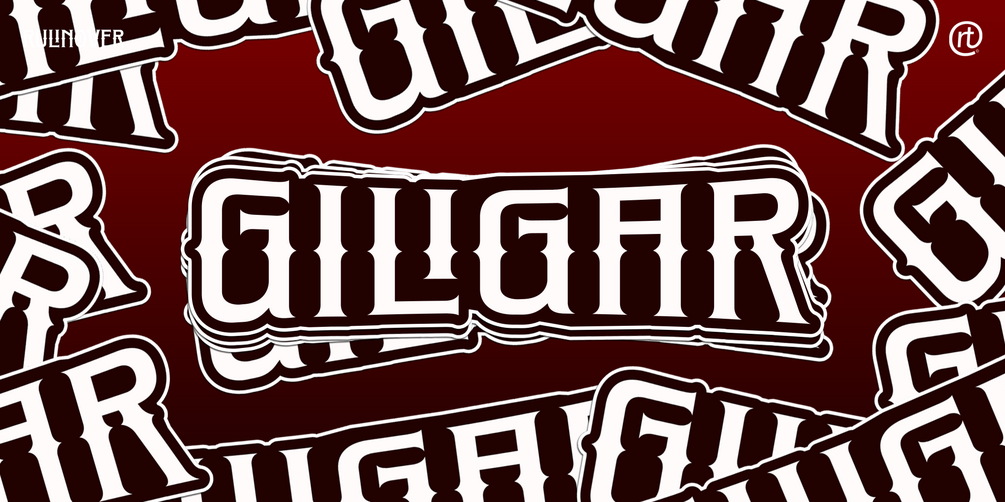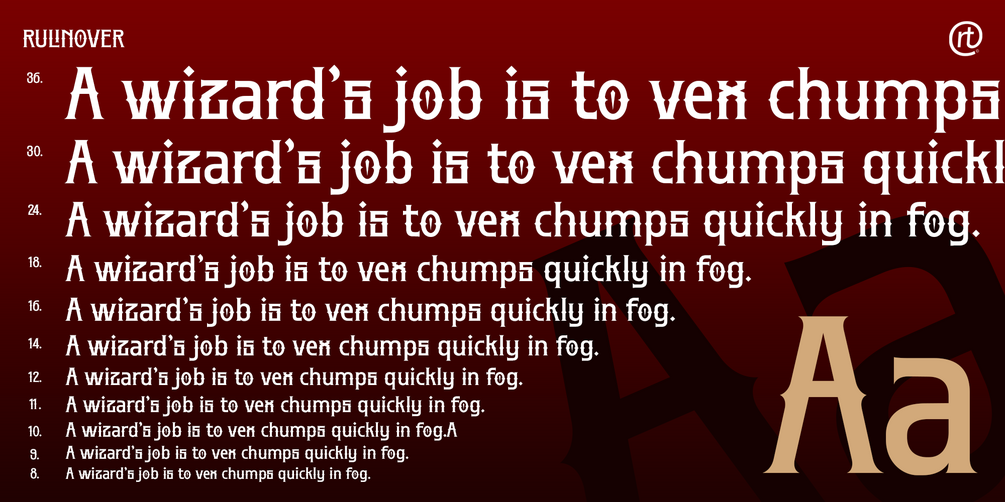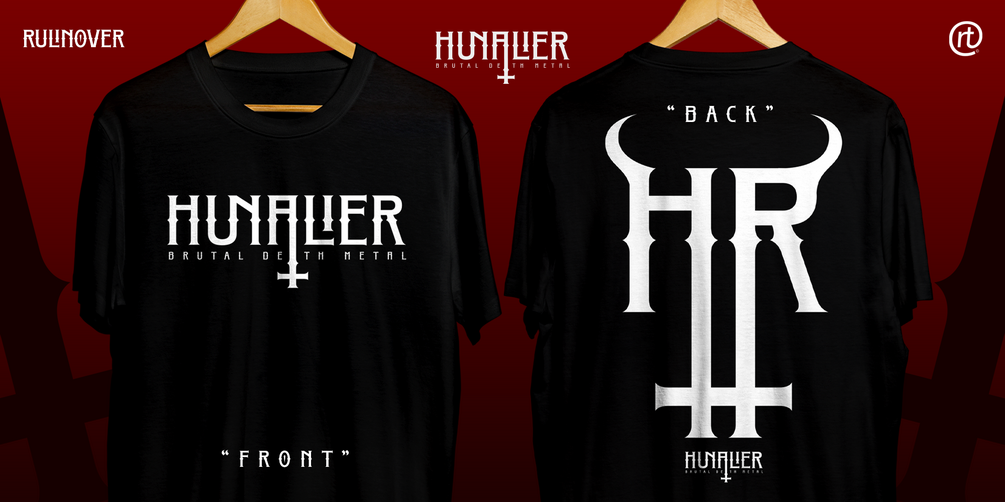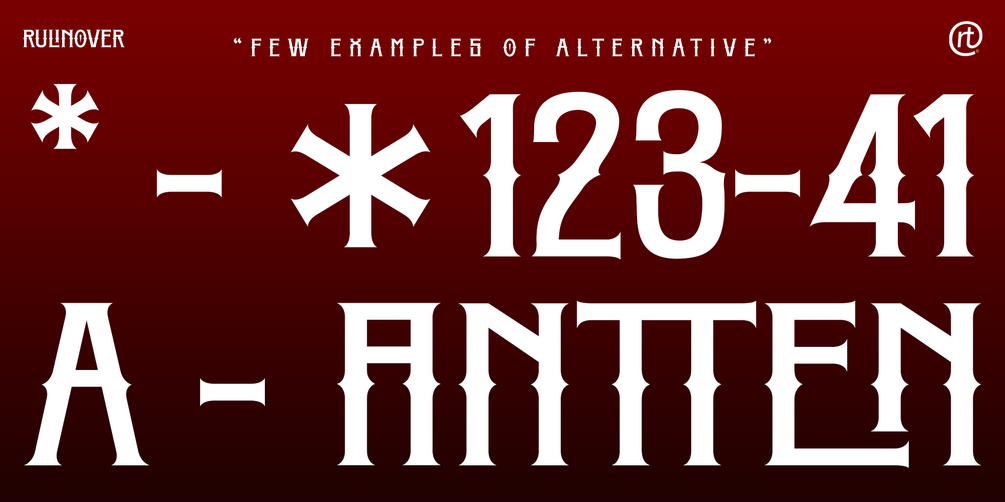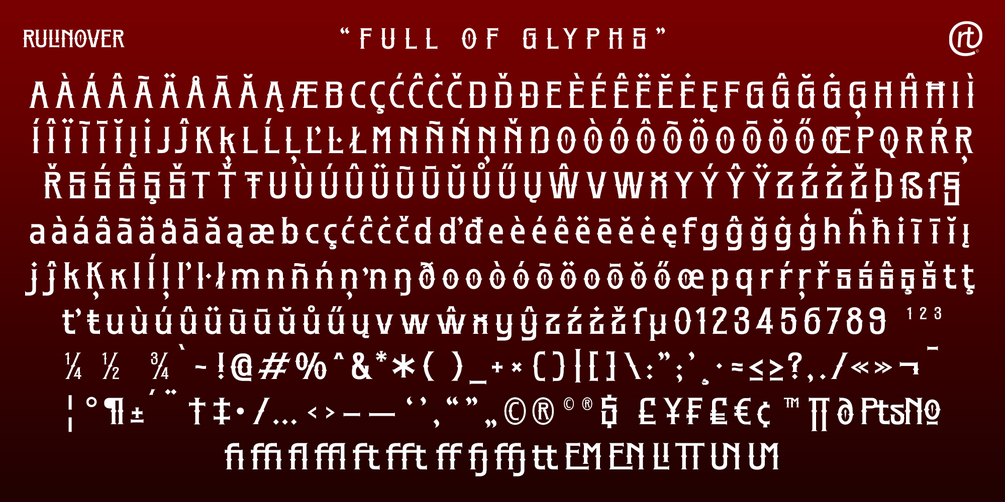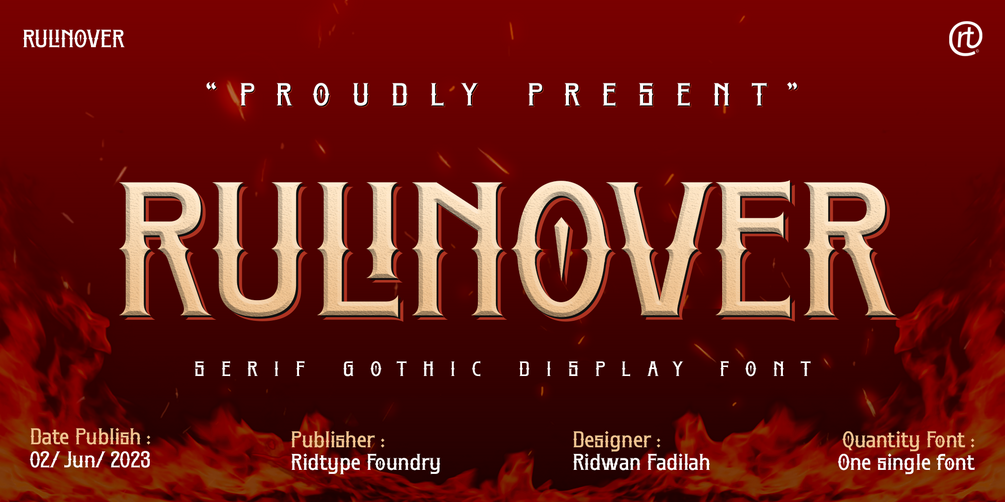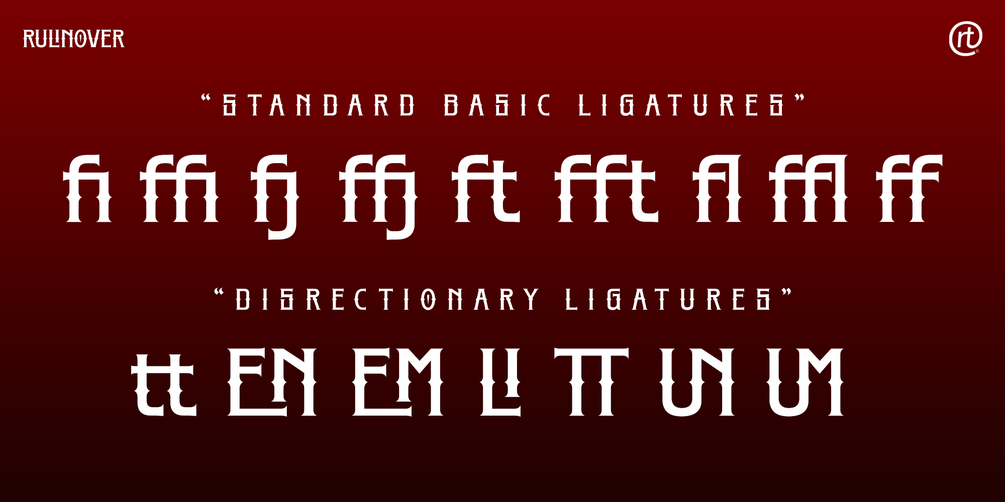
Rulinover - Serif Gothic Display
Rulinover is a serif font inspired by adrenaline-pumping gothic horror movies and games.
With that comes Rulinover as a supporting tool to support typography based on genres of horror adventure, challenge and dare in a particular game or film.
And also supported by many alternative ligature and letter concepts that are useful in making logotypes or monogram styles. For that, Rulinover is also equipped with various languages such as Latin 1 & 2.